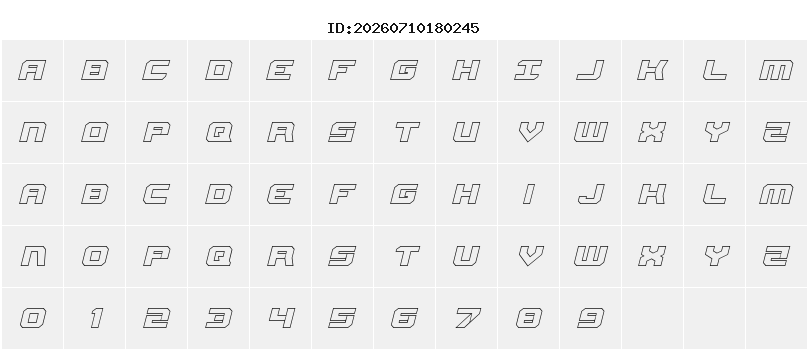
Gearhead Outline Italic Preview
• Font Name: Gearhead Outline Italic
• Full Font Name: Gearhead Outline Italic
About Gearhead Outline Italic.ttf
Gearhead Outline Italic.ttf is a modern, elegant sans-serif font designed for ultimate readability and visual harmony. Perfect for branding, headlines, web design, and print materials.